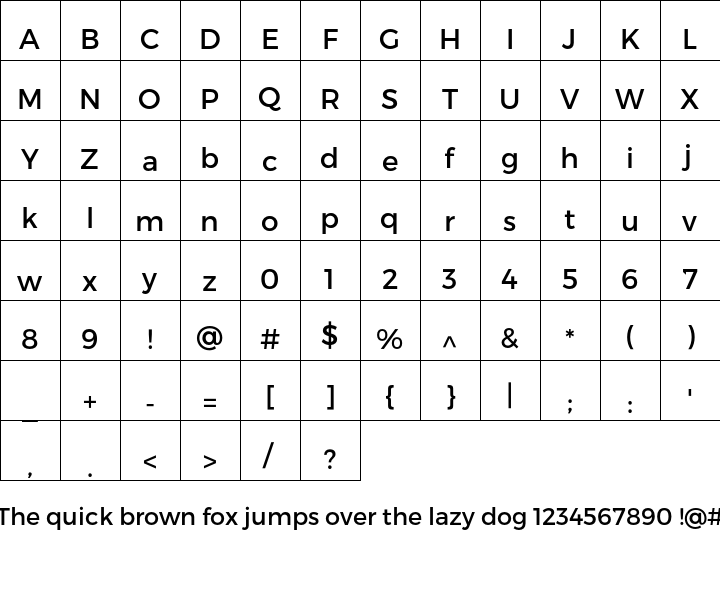
Today I am introducing to you an interesting and amazing font. Trueno Font is a simple and neat font. This font is designed by an Argentinian typeface designer. This font helps write books, book titles/covers, and headlines. This font also consists of a single Regular style.
This font is consists of a set of characters, numbers, and some special characters. It also contains a complete set of glyphs. This font is similar to the Poppins Font. Trueno font generator is also available. This generator provides a set of text graphic effects to your text to give it a tremendous look. With the help of its hundreds of colors, you make your text attractive.
Designer of Trueno Font
This font is designed by an Argentinian-type face and graphic designer Julieta Ulanovsky.
This font style is designed with a unique and consistent style. This attractive style is a combination of various characteristics, containing punctuations, capital alphabets, small alphabet, glyphs, digits, symbols, special characters, and with a large number of language support,
View of Trueno Font
| Designer | Julieta Ulanovsky |
Is Trueno Font easy to read?
Yes, this font is easy to read. You can use this font in your paragraphs and book writing. You can also this font in book covers, newspaper headlines, and magazine covers.
Is Trueno Font Display font?
No, this font is not a Display font. It is a basic Sans Serif font. It is simple, neat, and clean font.
Who created Trueno Font?
This font is created by an Argentinian typeface and graphic designer Julieta Ulanovsky.